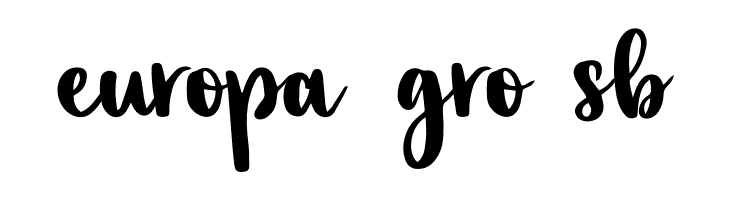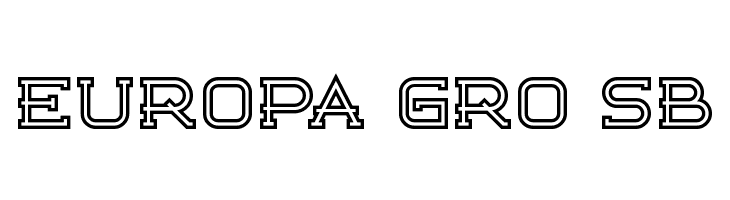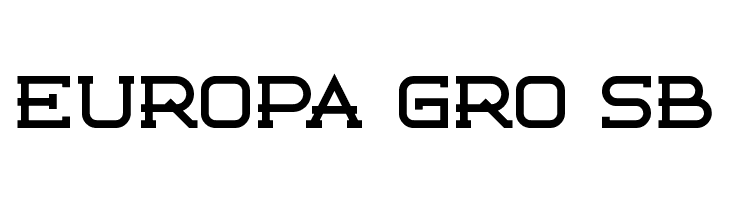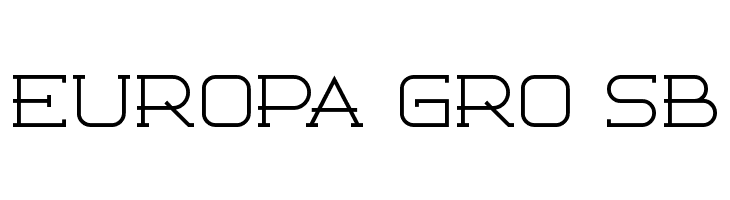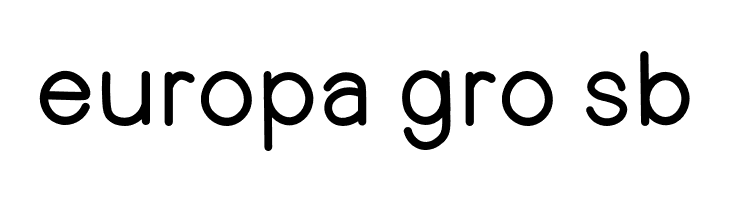
A bold, expressive handwritten font with smooth curves and flowing lines.
A playful, rounded font with a bold and friendly appearance.
A bold, geometric font with a modern and industrial aesthetic.
A bold, geometric outline font with a modern architectural style.
A geometric, thin-stroked font with a modern and structured design.
Outlined, hand gesture-based font inspired by sign language.
A series of hand gesture symbols representing letters and numbers, styled for clarity and recognition.
A modern, rounded sans-serif font with a friendly and approachable design.
A playful, hand-drawn font with elongated, whimsical letterforms.
Elegant, handwritten script with tall, flowing letters.